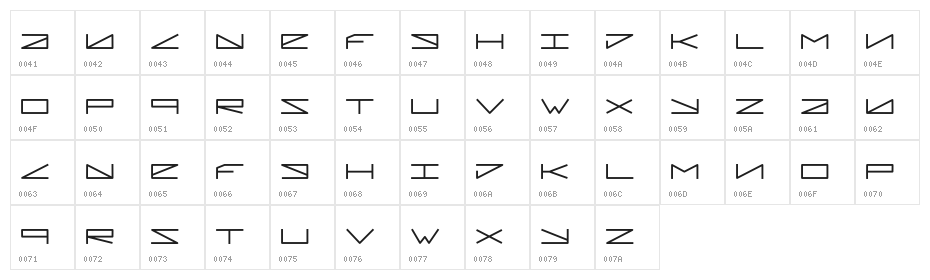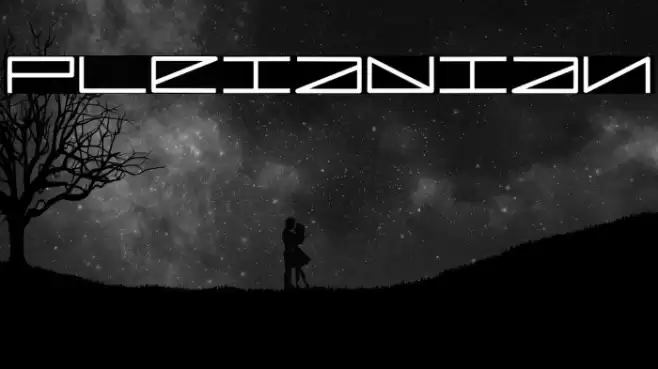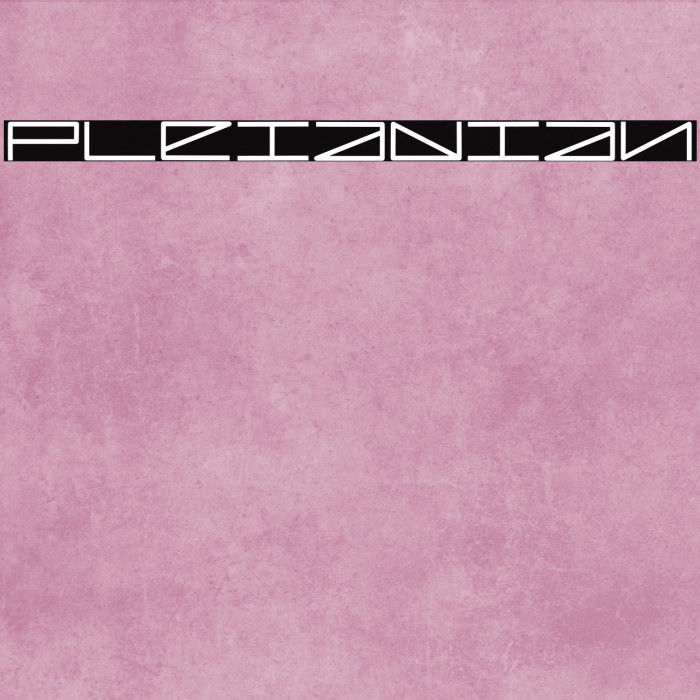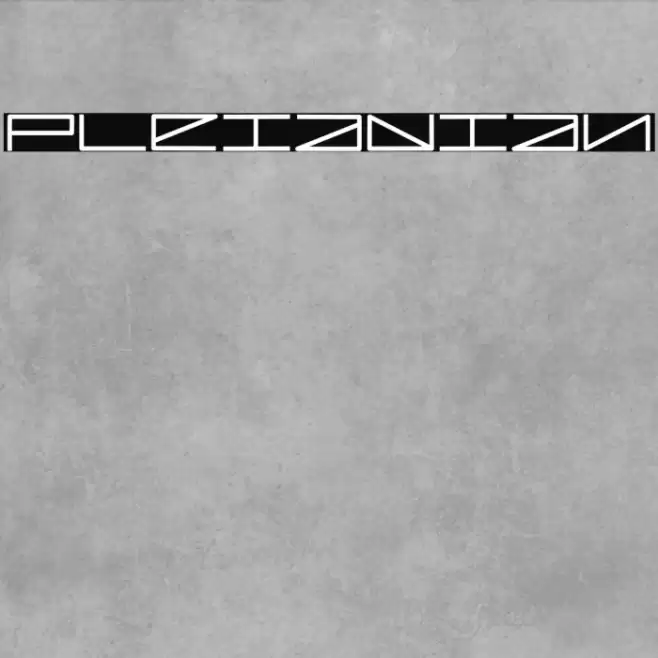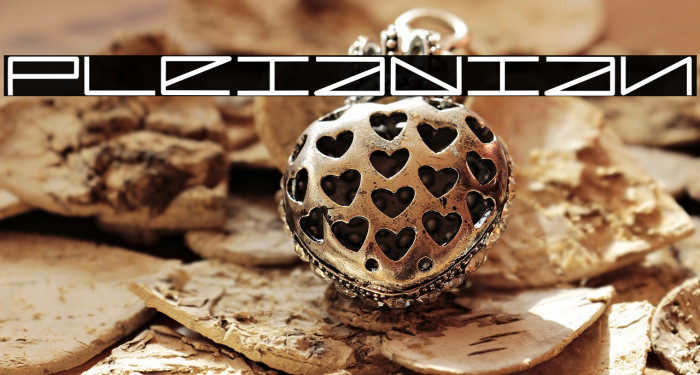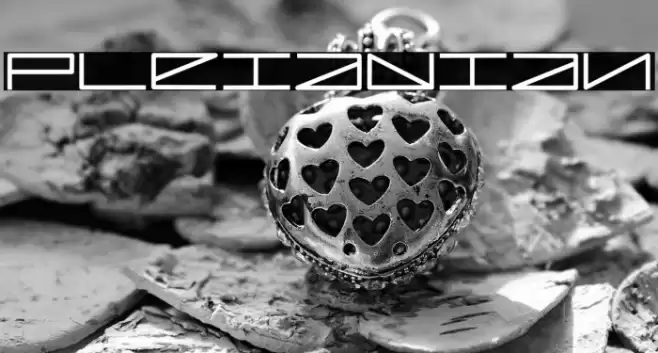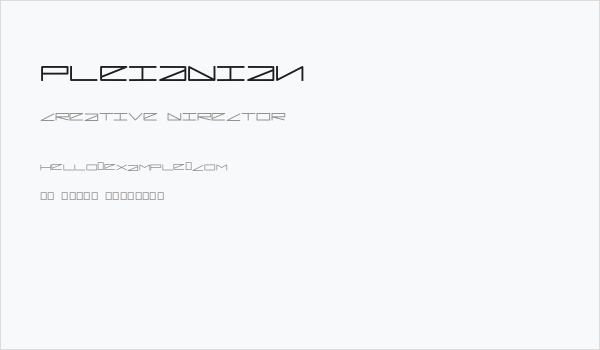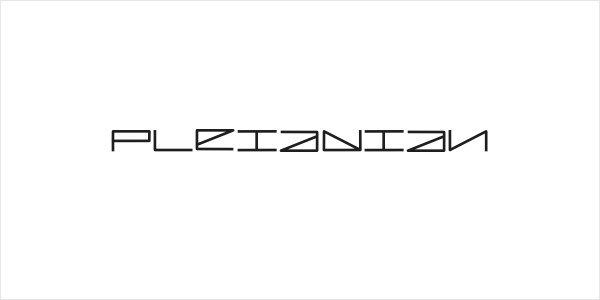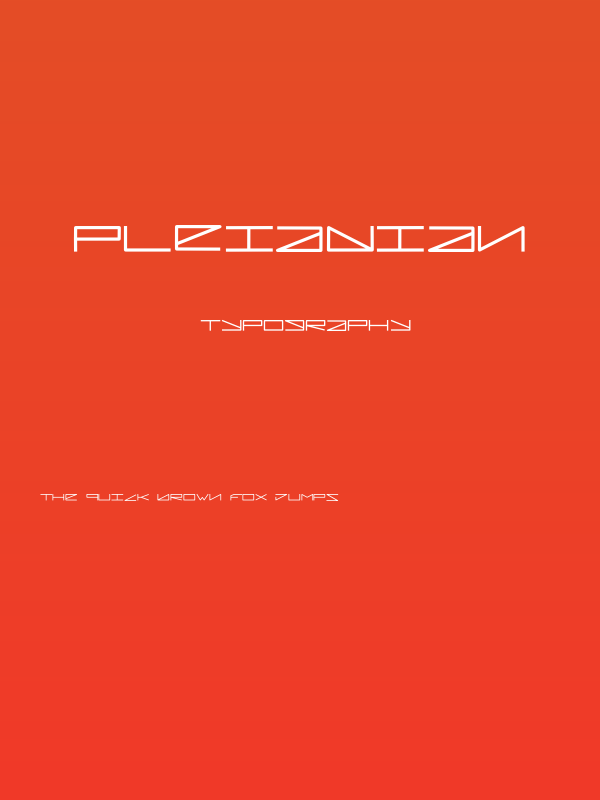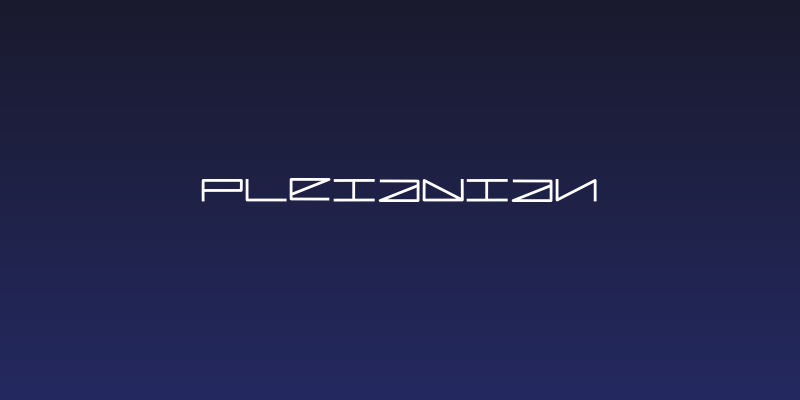
Pleiadian Font
This font features a futuristic and geometric design, characterized by sharp angles and clean lines. The uppercase letters are distinct with a unique angular style that gives a sense of modernity and innovation. The characters are consistent in their angularity, creating a cohesive and visually striking appearance. The font lacks traditional curves, opting instead for a more rigid and structured form, which enhances its futuristic aesthetic. This design choice makes it particularly suitable for projects that require a modern and cutting-edge look.
| Proposed Projects | Ideal for sci-fi themed projects, technology branding, modern art displays, and innovative product packaging. |